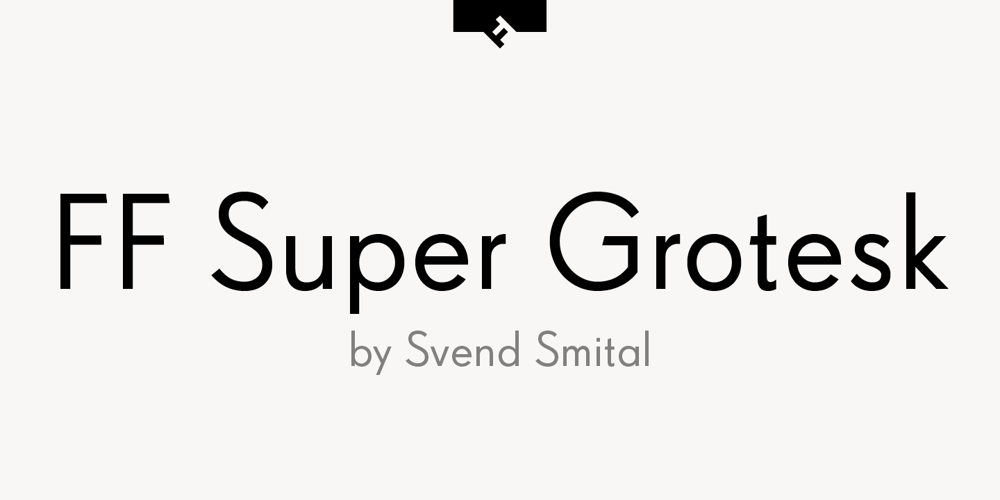
FF Super Grotesk Font Family was designed by Svend Smital and published by FontFont. FF Super Grotesk contains 6 styles and family package options. German type designer Svend Smital created this sans FontFont in 1999. The family has 6 weights, ranging from Regular to Bold in Condensed and Normal and is ideally suited for film and tv and editorial and publishing. FF Super Grotesk provides advanced typographical support with features such as ligatures, alternate characters, case-sensitive forms, fractions, super- and subscript characters, and stylistic alternates. It comes with a complete range of figure set options – oldstyle and lining figures, each in tabular and proportional widths.